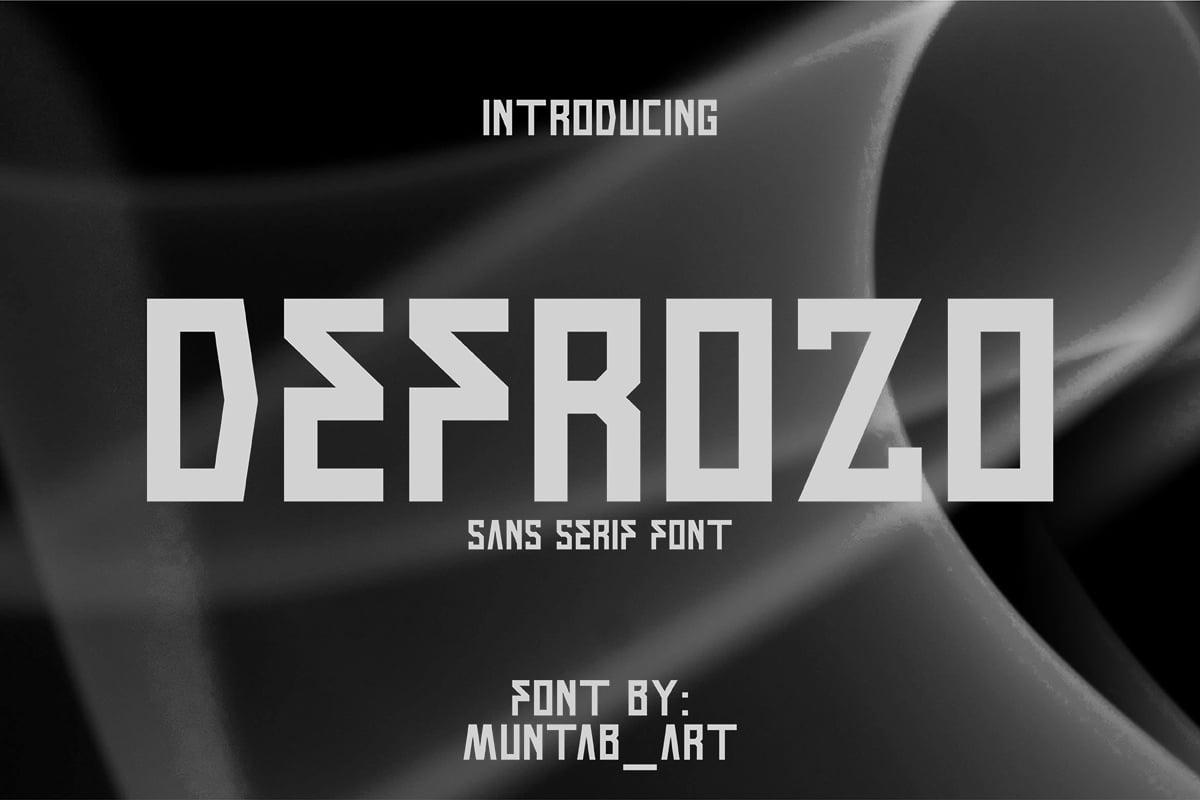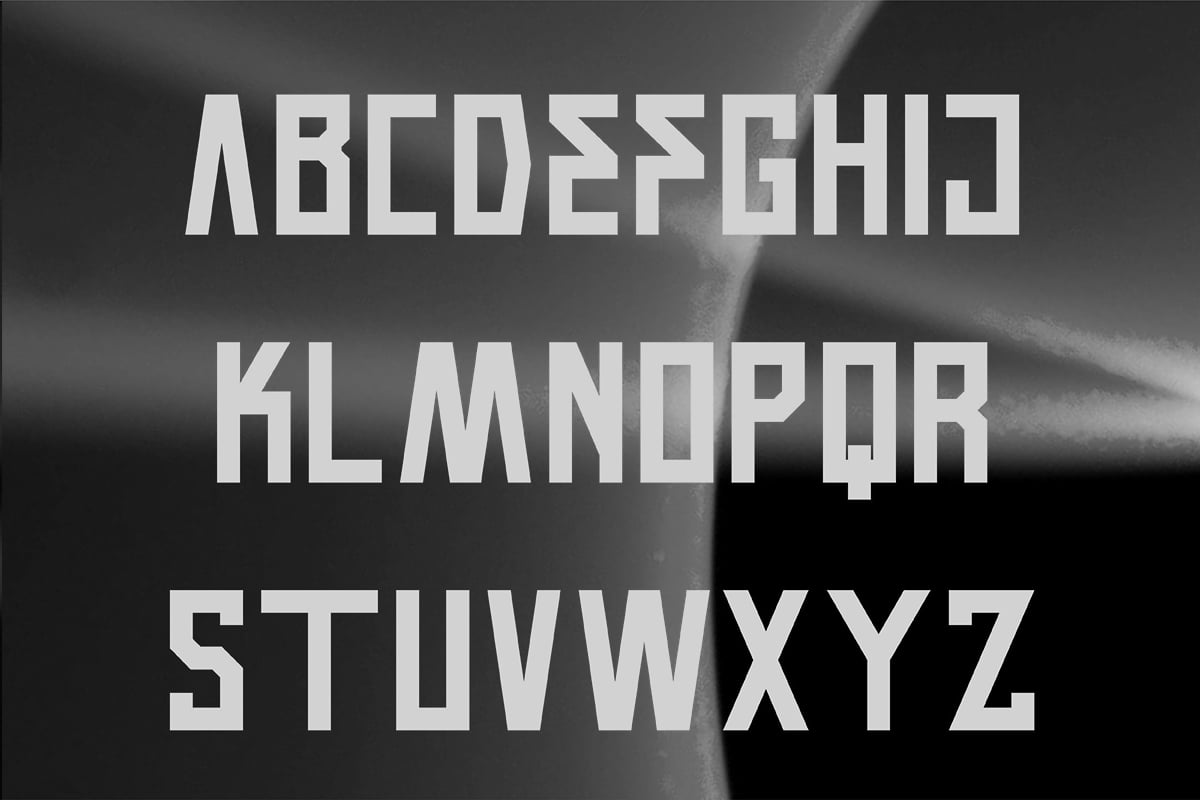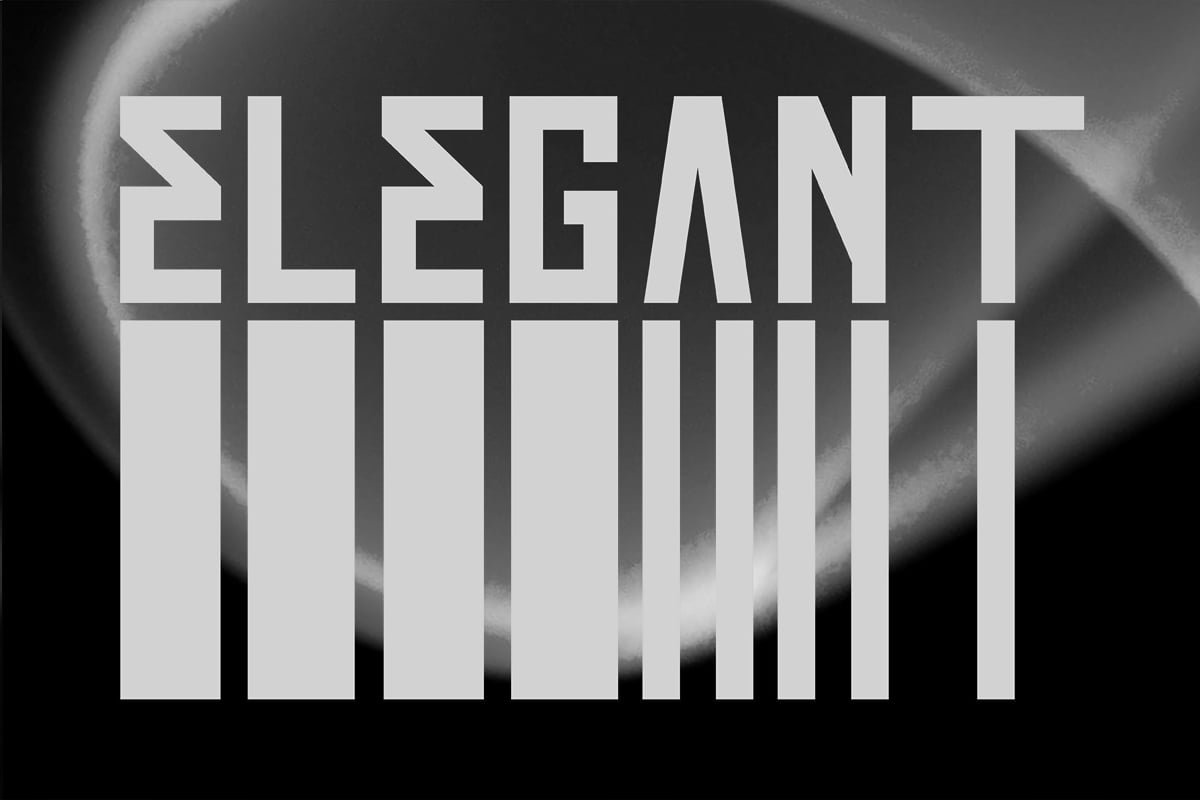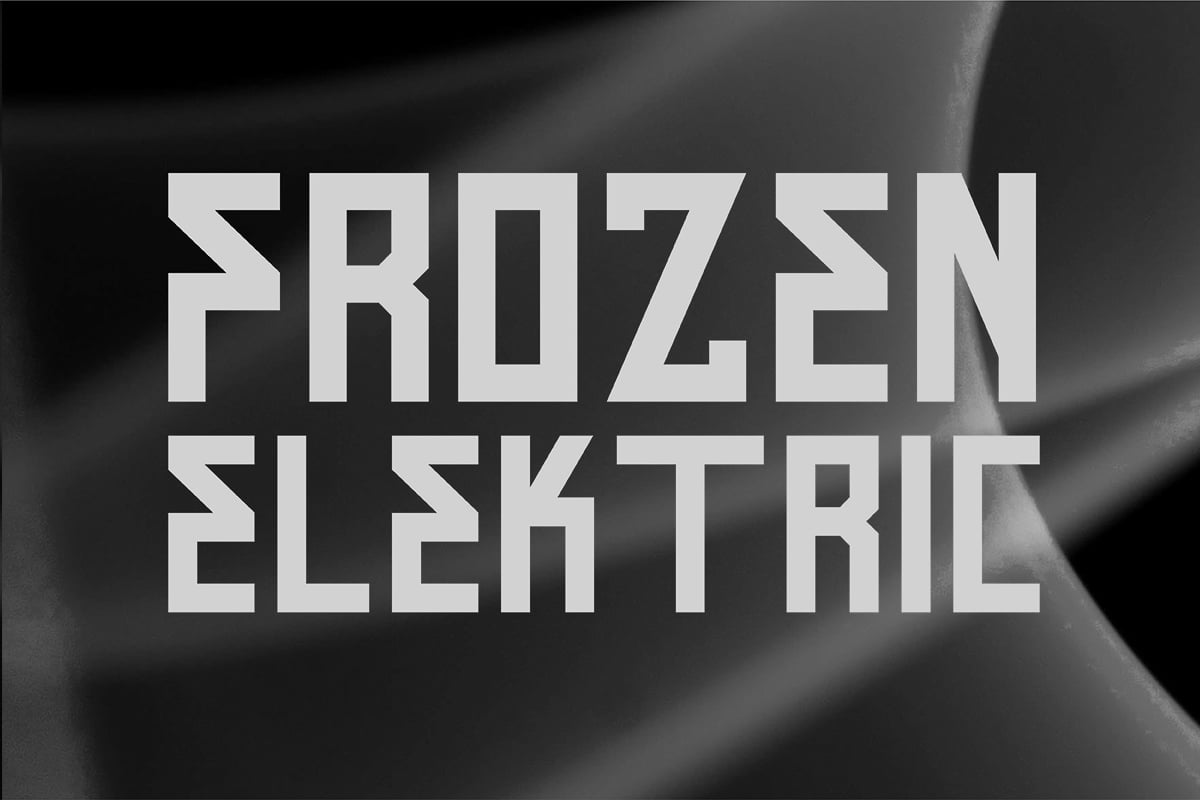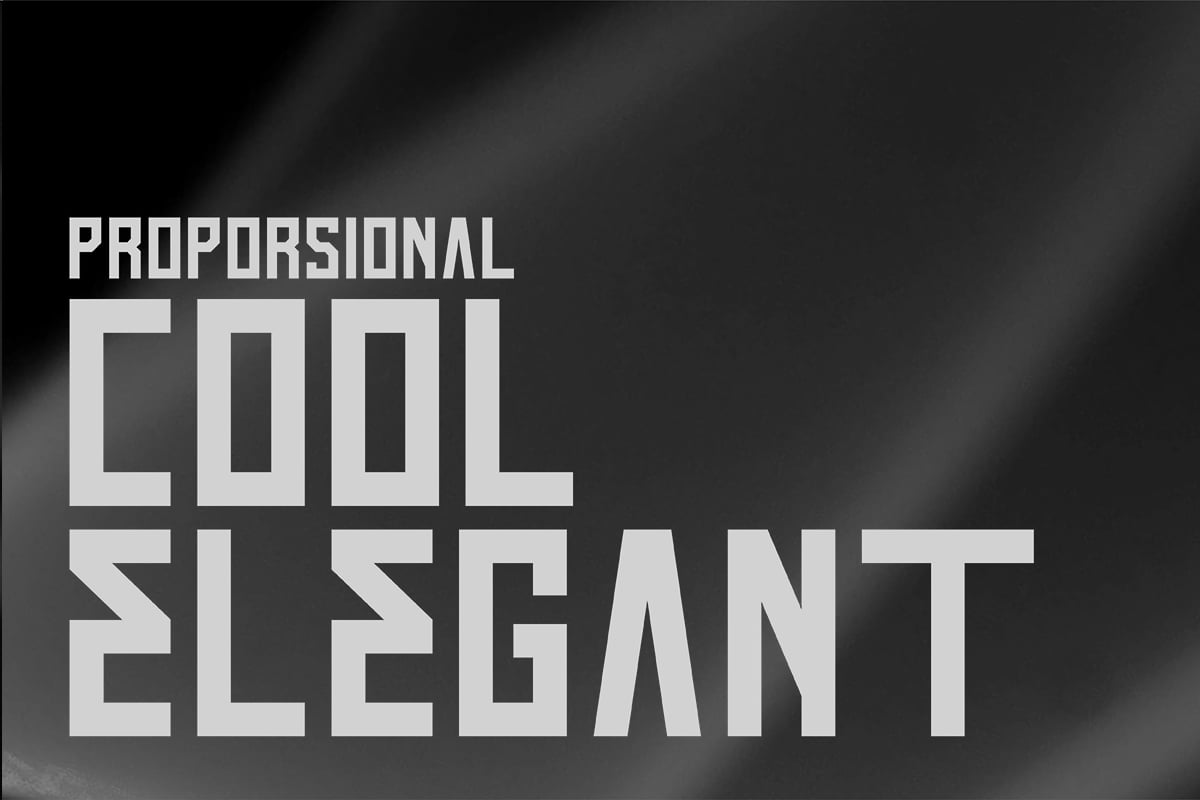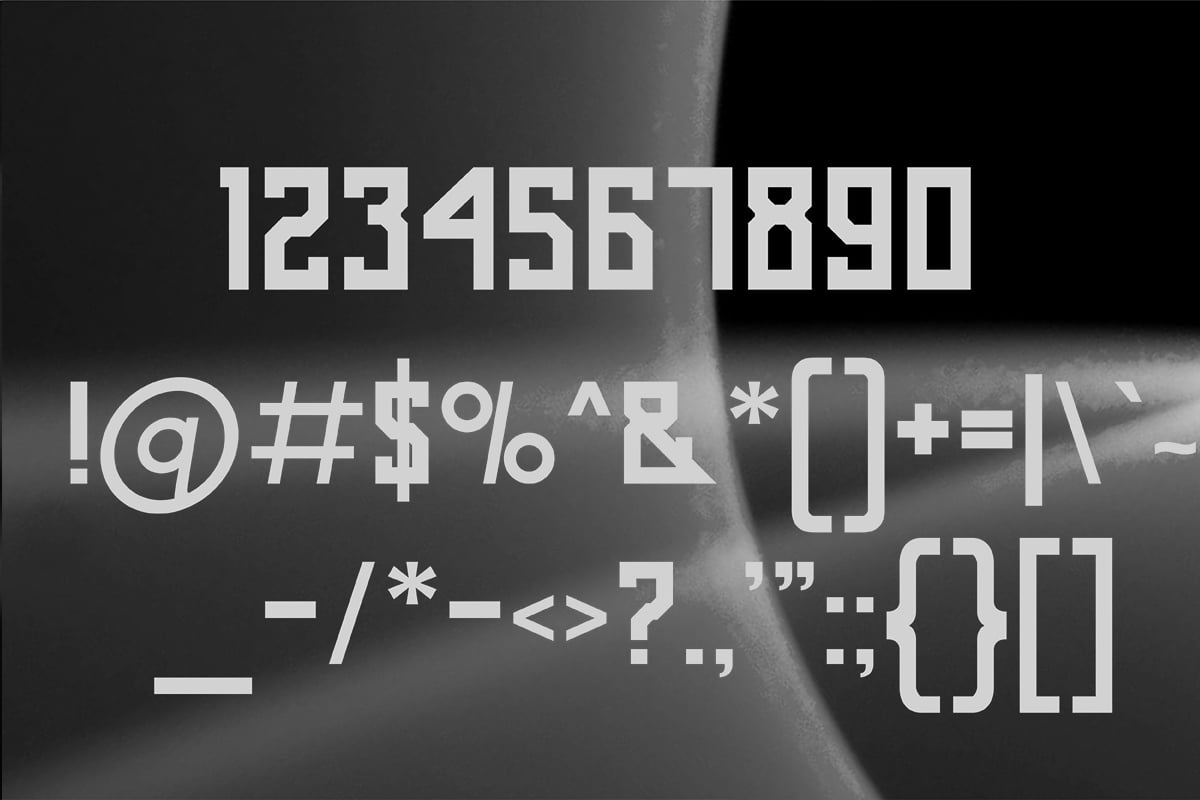
Defrozo | Block Font
Defrozo fonts includes uppercase letters, numerals, a large range of punctuation. sans serif font with modern style. Created for poster, web design, branding, illustrations, badges and some other works.